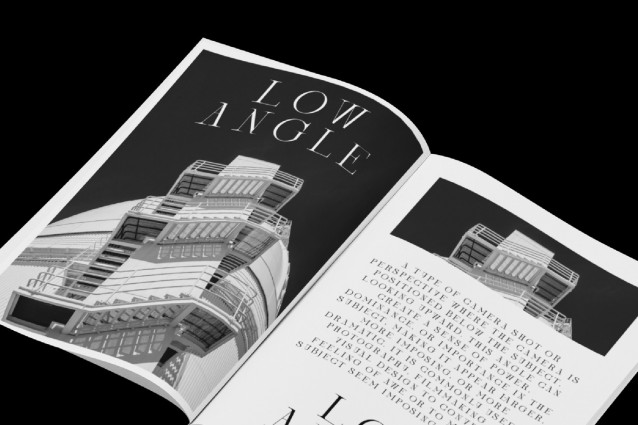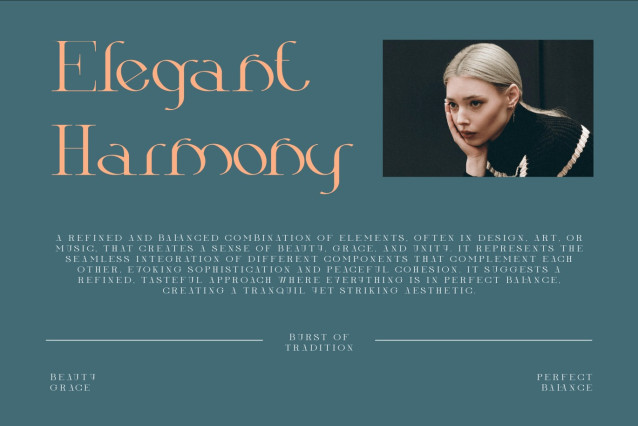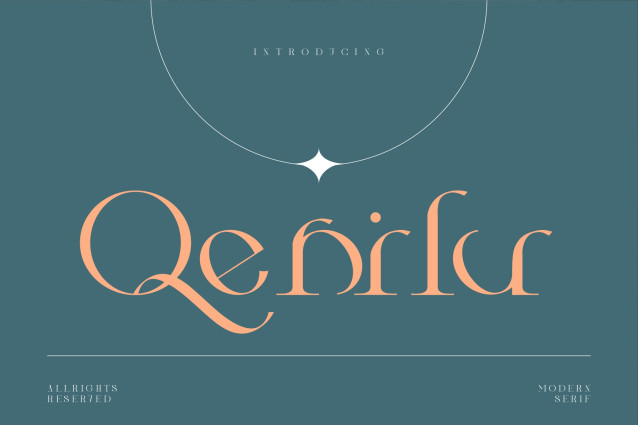
Qenilu Font
Qenilu Font is a sophisticated serif font that exudes elegance and timeless charm. With its refined curves and distinctive serifs, it effortlessly combines classic elements with modern sensibilities. Designed to evoke a sense of luxury and grace, Velinu is perfect for high-end branding, editorial designs, and any project that demands a touch of refinement.